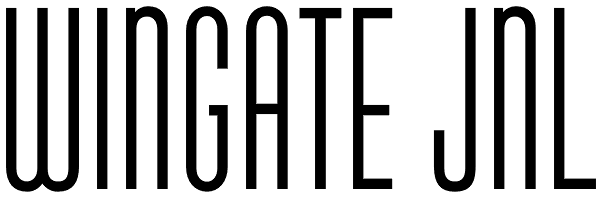
Wingate JNL
The elegance of the 1940s and the Art Deco Era is evident in Wingate JNL from Jeff Levine. Its tall, graceful styling is perfect for invitations, letterheads, announcements or anything that needs the look of yesterday with a sophisticated...